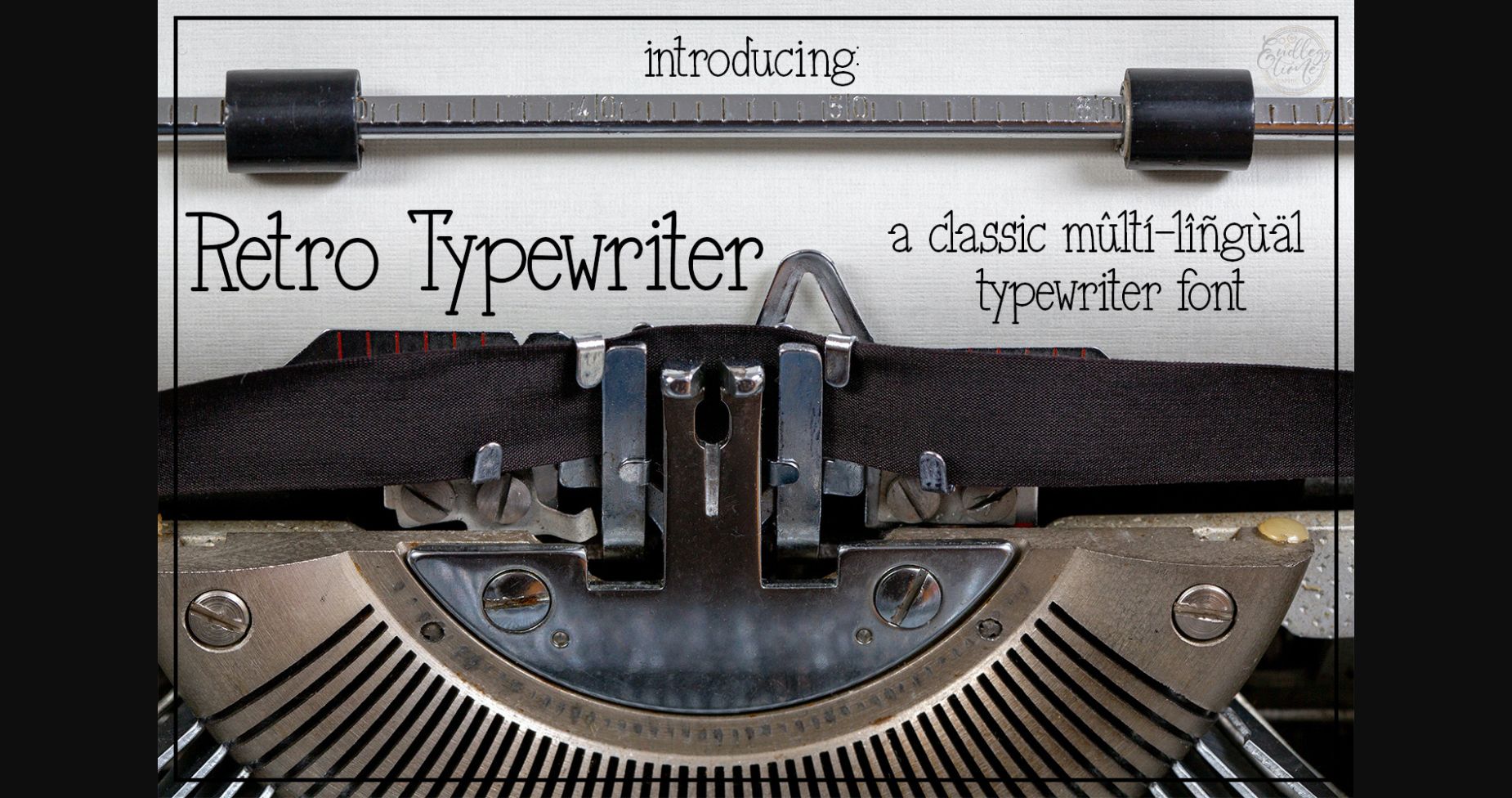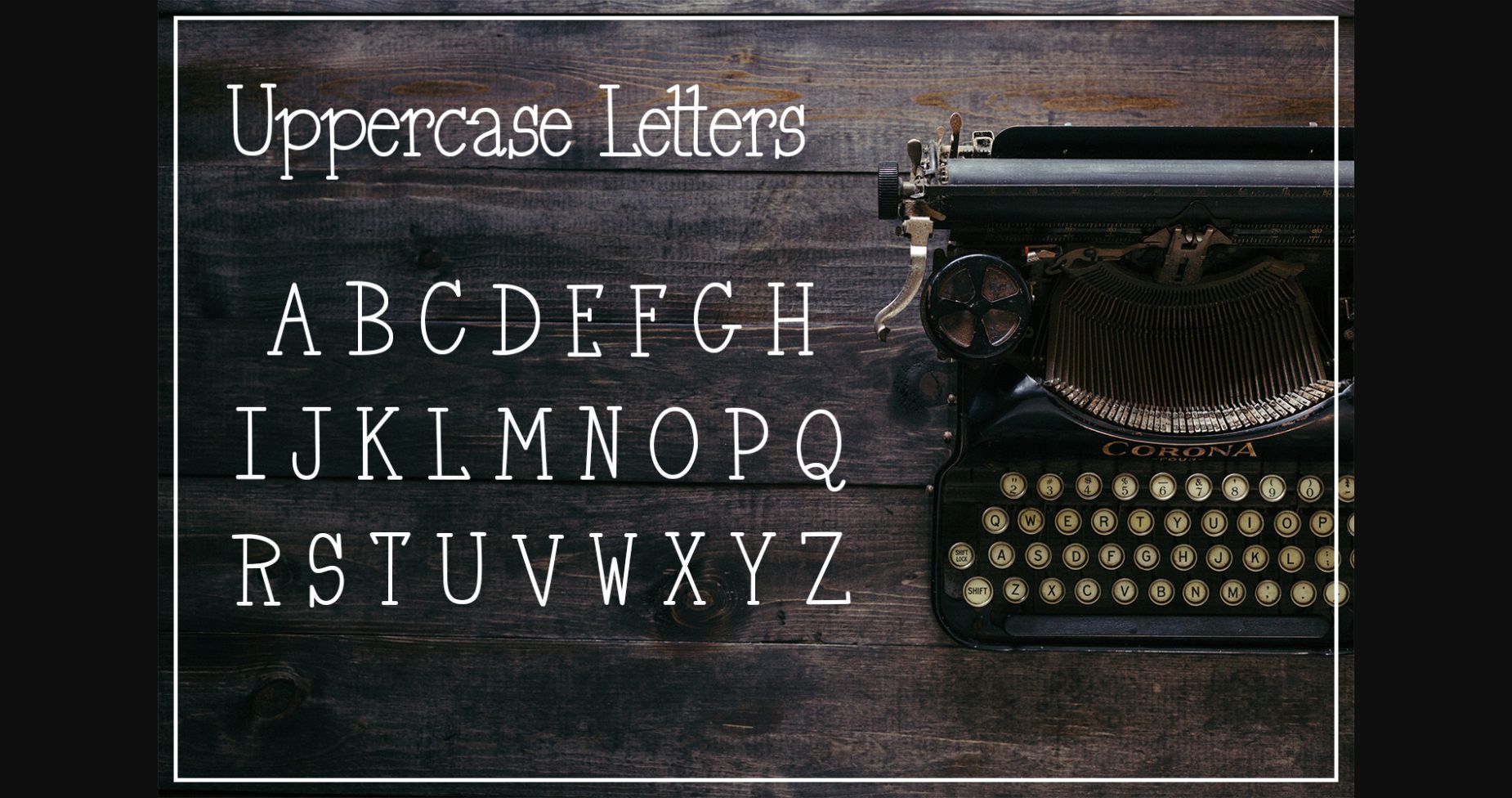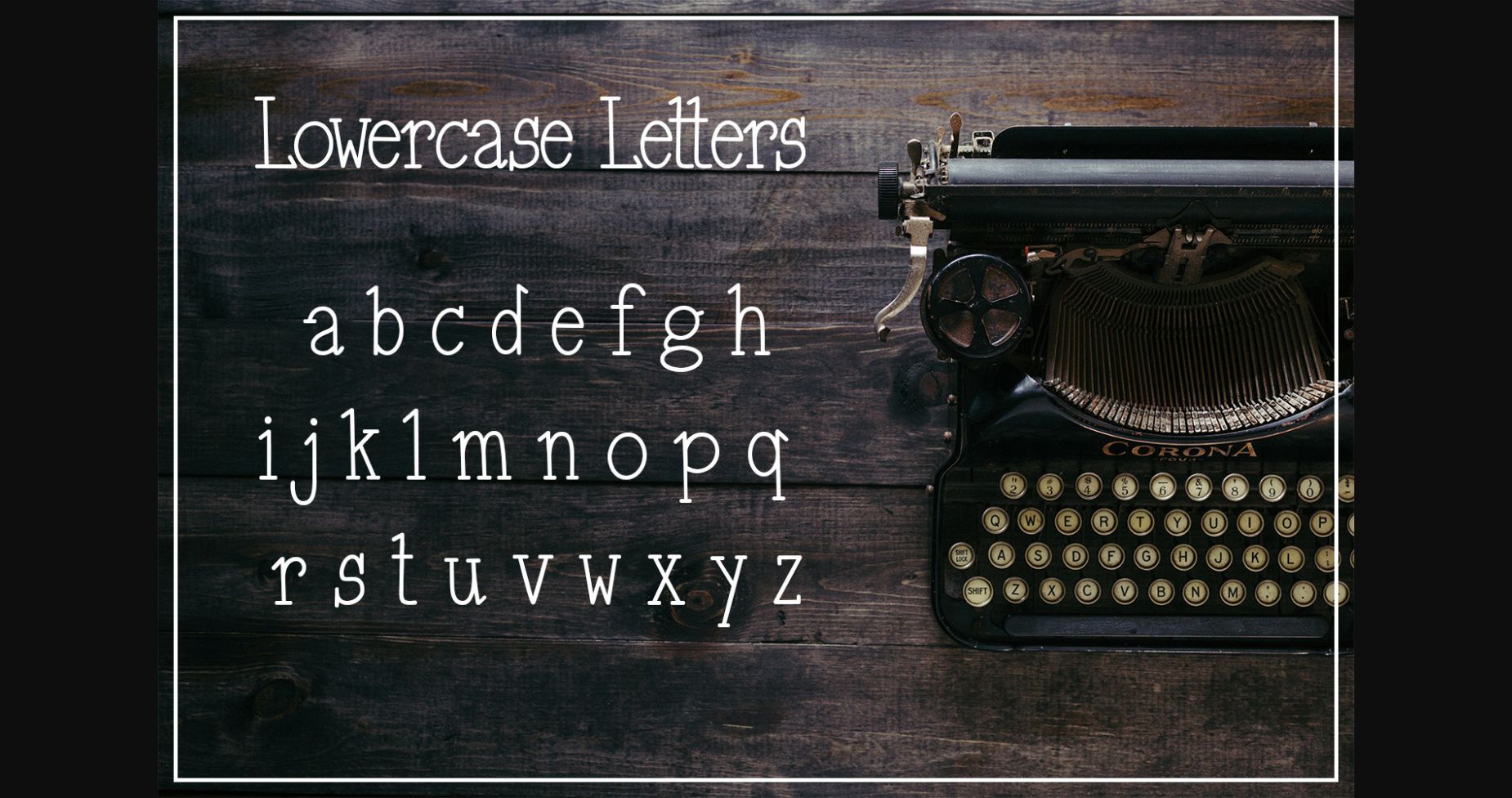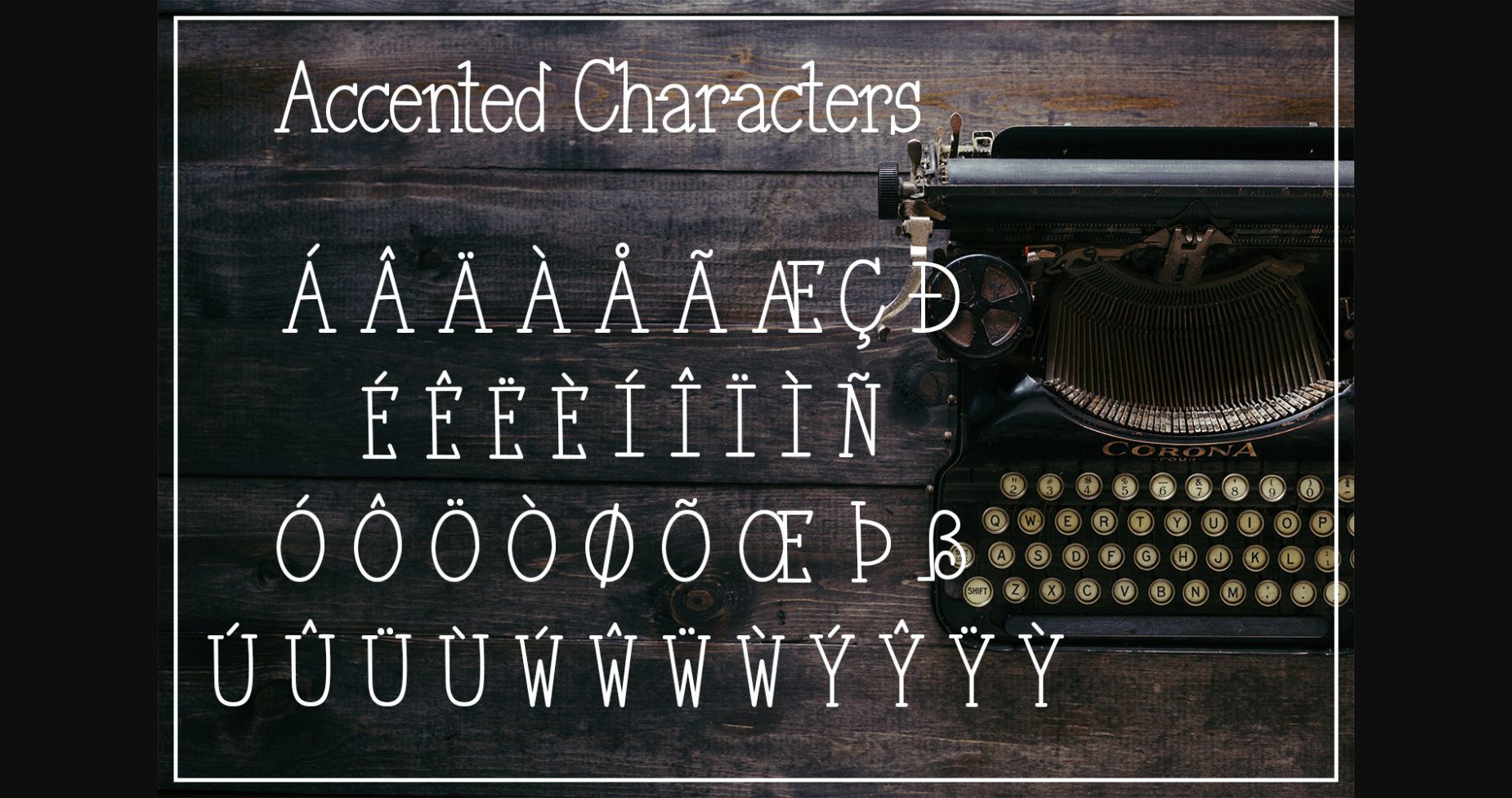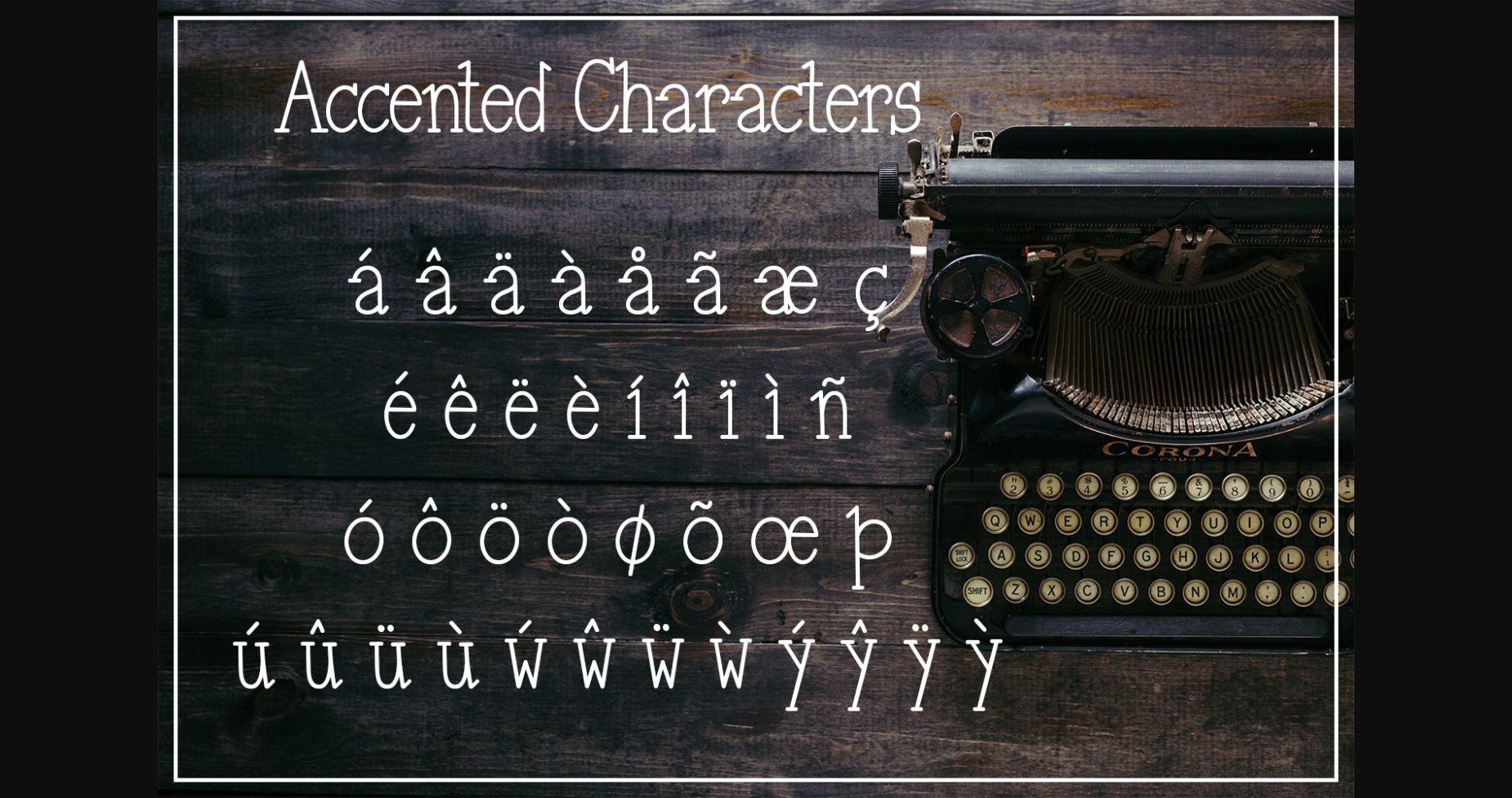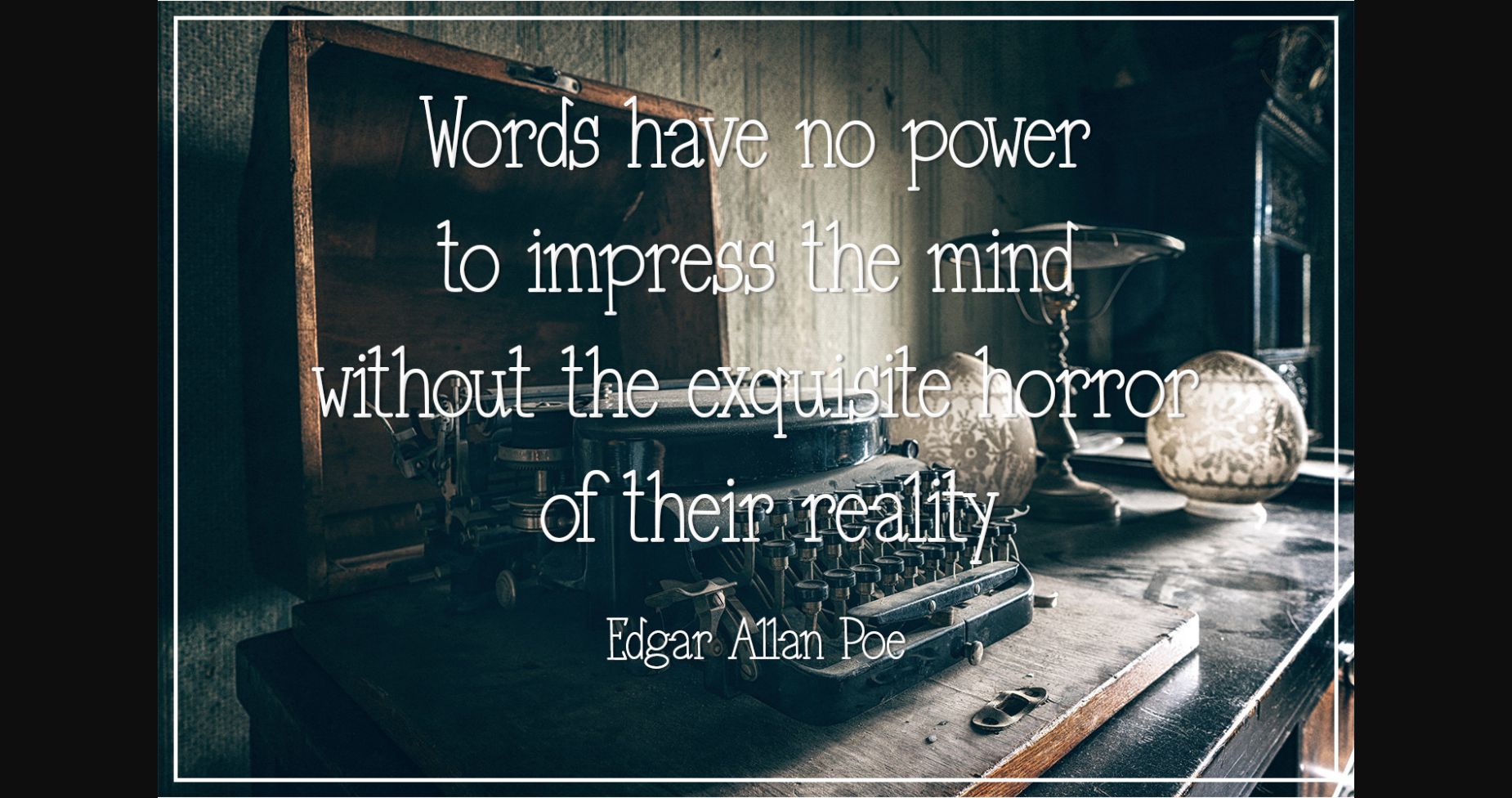
Retro Type-writer Font
About Retro Type-writer Font
Add a touch of nostalgia and vintage charm to your designs with Retro Typewriter, a meticulously crafted hand-written font that takes inspiration from classic typewriters of yesteryear. This versatile typeface is perfect for giving your projects a retro twist, whether you’re designing posters, invitations, logos, or anything in between.